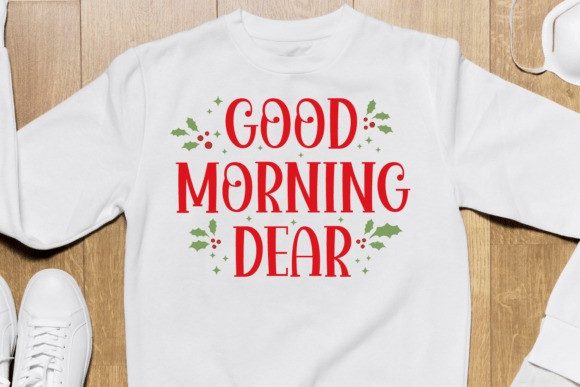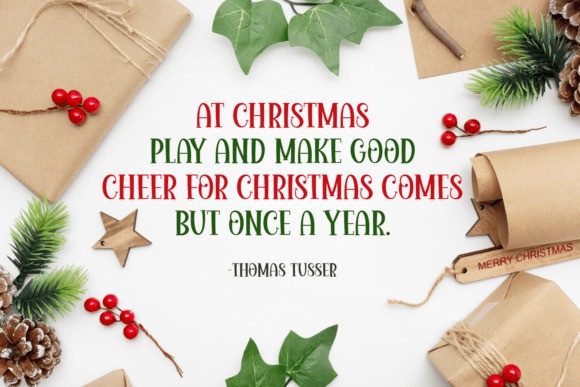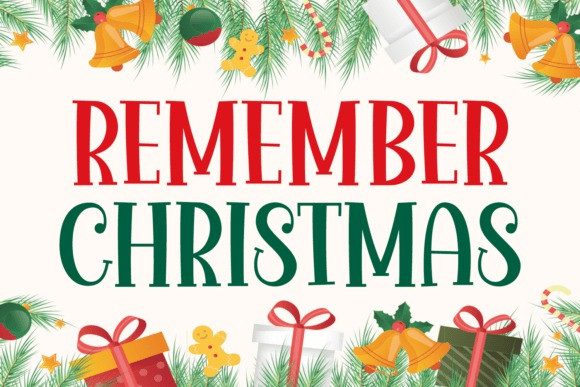
Remember Christmas Display Font
Remember Christmas Display Font is a festive and playful display font full of holiday cheer!Featuring whimsical curves and a classic serif flair, this font captures the warmth and joy of the season. Perfect for Christmas cards, holiday posters, gift tags, and seasonal branding, it brings a cozy yet stylish charm to any winter design. With full uppercase, lowercase, punctuation, numerals, and multilingual support, it’s your go-to typeface for creating magical moments.